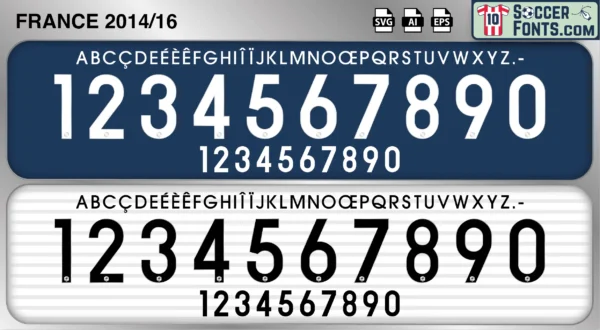
France 2014-16 Font
The France 2014-16 font is an editable soccer jersey lettering design in vector format inspired by the France kit style used during the 2014-16 football seasons. This football font artwork is prepared for football shirt recreations, custom jersey projects, football kit mockups and sports graphic design workflows.
The 2014-16 period began with France’s encouraging performance at the 2014 FIFA World Cup and continued toward one of the most significant tournaments in the nation’s modern history. As hosts of UEFA EURO 2016, France entered a new era of expectation and excitement. The squad featured players such as Antoine Griezmann, Paul Pogba, Hugo Lloris, Olivier Giroud, Blaise Matuidi and Dimitri Payet, combining established internationals with emerging stars. Throughout this period, France developed into one of the strongest teams in Europe and built a competitive identity capable of challenging for major trophies.
The France 2014-16 font became associated with the road to UEFA EURO 2016 and the emergence of a generation that would later achieve international success. France shirts from this era remain highly collectible because of their connection with Griezmann’s rise to global prominence, memorable performances on home soil and the formation of a squad that would dominate international football in the years that followed. The France 2014-16 font reflects a period of national anticipation, football culture and competitive growth, capturing the beginning of one of the most successful eras in modern French football history.
France 2014-16 Font